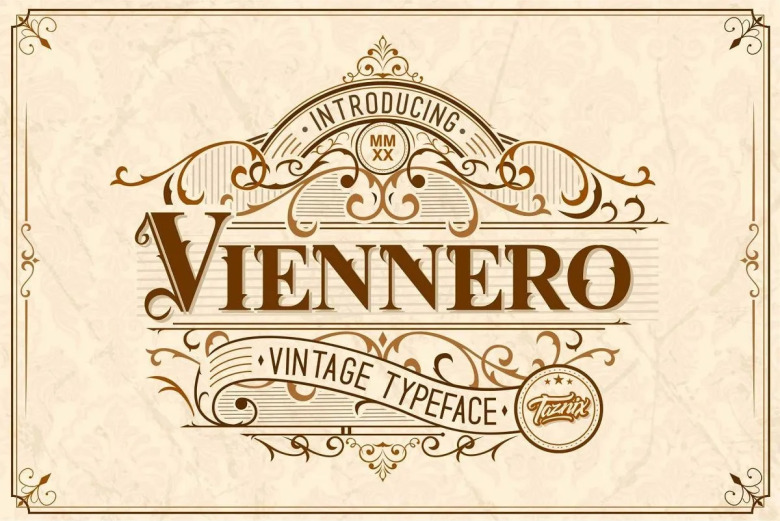
Viennero Font
Feeling playfully nostalgic and create an amazing vintage aesthetic. Feel free to use an Viennero for any design idea you can think of! Viennero  is Perfect for brand projects, Logo, Social Media Posts, Ads, Product Packaging, Product Designs, Label, Photography, Watermark, Invitation, Stationery, and any projects that need retro & vintage taste.
Viennero Vintage Display Font